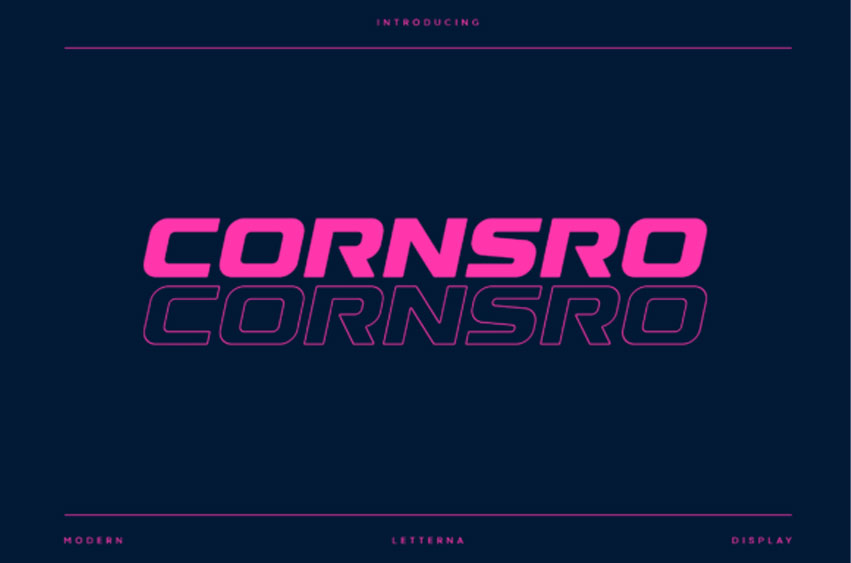
Cornsro Font Accelerate your design impact with Cornsro, a high-octane modern display typeface built for speed and precision.
This Cornsro font features an ultra-wide, italicized stance with sleek, aerodynamic curves that evoke a sense of futuristic technology and automotive power. The Cornsro typeface is the ultimate choice for sports branding, gaming interfaces, and tech-focused marketing materials that require a bold, authoritative presence.
Whether you are designing a racing team logo or a cinematic title sequence, the Cornsro font delivers a professional, heavy-duty aesthetic that commands attention. Its clean, industrial lines make the Cornsro typeface exceptionally easy to use across both digital platforms and physical apparel. Pair it with neon gradients or metallic textures to fully lean into its high-speed, modern personality.
Cornsro comes with these all caps regular, italic, and outline making them look strong and bold, giving them a bold and modern feel, so enjoy creating any project that will showcase your main idea!